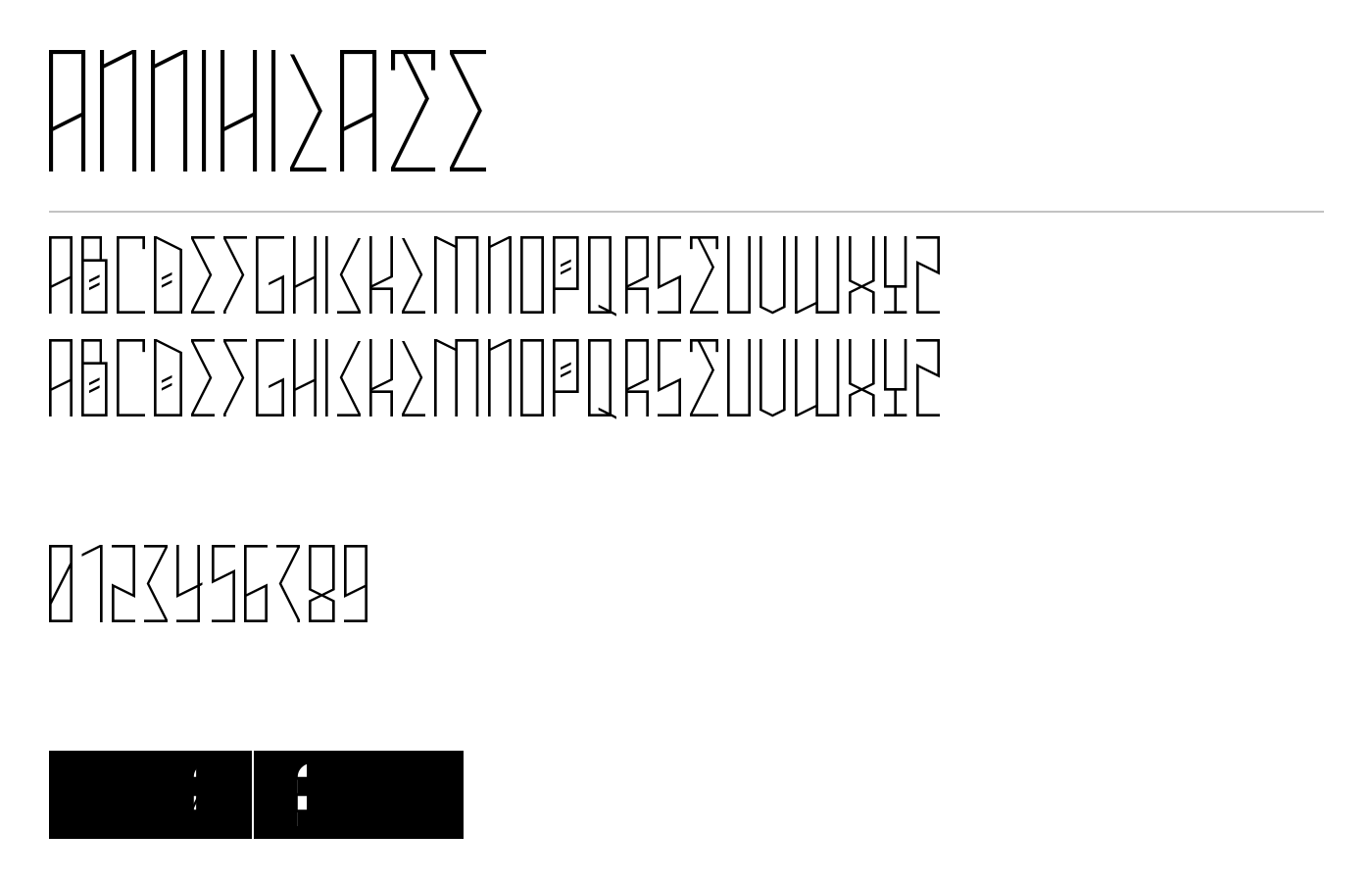
ANNIHILATE is a tall, narrow sans serif font with a futuristic, geometric design characterized by sharp angles and thin lines. Its unique letterforms create a striking, edgy look perfect for bold headlines or branding that seeks a modern, tech-inspired aesthetic. This font works best in display settings such as logos, posters, or website headers where its distinctive style can make a strong visual impact.
ANNIHILATE Font
About ANNIHILATE Font